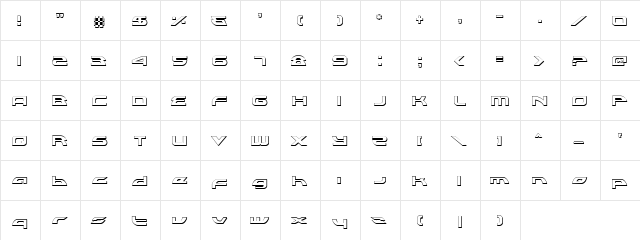
Alexis Lower Case Outline Lower Case Outline
Design Context for Alexis Lower Case Outline Typeface
Alexis Lower Case Outline brings ornamental detail and strong personality to headlines and identities, where visual impact matters more than quiet functionality.
Font Pairing: Pair with a clean neutral sans-serif for body copy to let Alexis Lower Case Outline's character lead without overwhelming the composition.
Pro Tip: Use Alexis Lower Case Outline exclusively at display sizes — it was designed to be seen, not read at length. Let a neutral companion handle body copy.